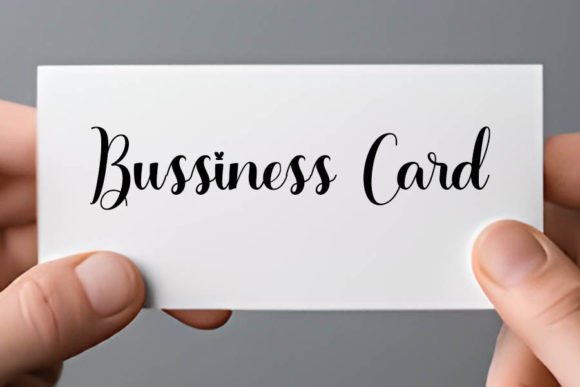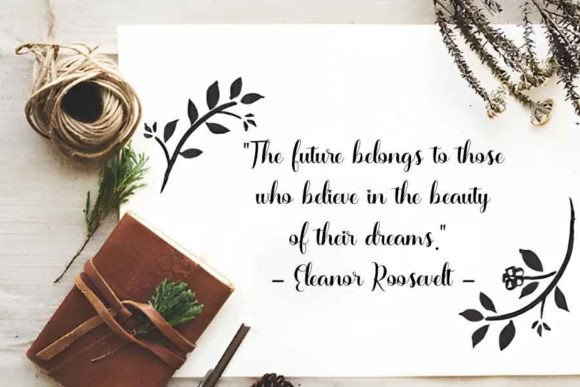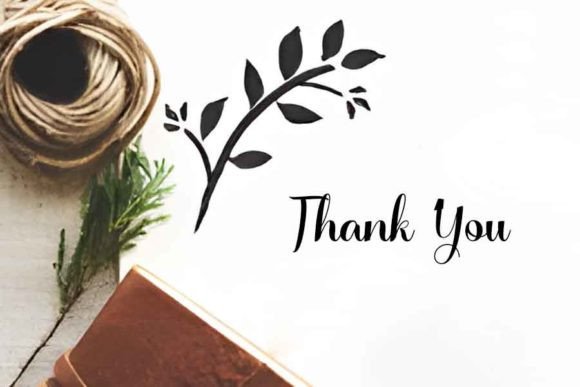
Introducing Envelope Font: Elevate Your Designs with Whimsy and Luxury
Are you on the hunt for a font that adds a touch of elegance and playfulness to your design projects? Look no further than the Envelope Font. This sweet, whimsical, flowing, and thin script font is designed to make your creations stand out with its unique charm. Featuring characters that dance along the baseline, Envelope Font is the perfect choice for designers and crafters looking to infuse their work with a luxury spark.
What Makes Envelope Font Special?
Envelope Font boasts a range of characteristics that set it apart from other fonts. Its flowing script style gives it a dynamic, elegant feel that’s perfect for a variety of design applications. Whether you’re working on a branding project, crafting beautiful wedding invitations, or creating eye-catching packaging, Envelope Font can help you achieve a sophisticated yet whimsical look.
Key Features of Envelope Font
- Whimsical and Flowing Design: The font’s characters are designed to flow smoothly along the baseline, creating a sense of movement and elegance.
- Thin Script Style: The thin lines of the script font give it a delicate, refined appearance that’s perfect for adding a touch of luxury to your designs.
- Dancing Characters: The way the characters dance along the baseline adds a playful, whimsical touch to the font, making it stand out from more traditional script fonts.
- Versatility: Envelope Font can be used for a wide range of design projects, from digital content to print materials.
How to Use Envelope Font in Your Designs
Envelope Font is incredibly versatile and can be used in a variety of design projects. Here are a few ideas to get you started:
Branding and Logos
Add a touch of elegance and whimsy to your brand’s logo or packaging with Envelope Font. Its unique style can help your brand stand out and convey a sense of luxury and sophistication.
Wedding and Event Stationery
Create beautiful wedding invitations, save-the-date cards, and other event stationery with Envelope Font. Its flowing script style and whimsical charm make it perfect for celebrating special occasions.
Digital Content
Use Envelope Font to add a touch of elegance to your digital content, such as blog posts, social media graphics, and email newsletters. Its thin script style and flowing design make it easy to read on digital devices.
Crafting and DIY Projects
Crafters and DIY enthusiasts can also use Envelope Font to add a personal touch to their projects. Use it to create beautiful journal pages, decorate scrapbook layouts, or add a touch of elegance to handmade cards and gift tags.
Envelope Font is a beautiful, whimsical, and elegant script font that’s perfect for designers and crafters looking to add a touch of luxury to their design projects. With its flowing script style, dancing characters, and thin lines, Envelope Font is sure to make your creations stand out. Whether you’re working on a branding project, crafting beautiful stationery, or creating digital content, Envelope Font is a versatile and stylish choice that’s sure to impress.